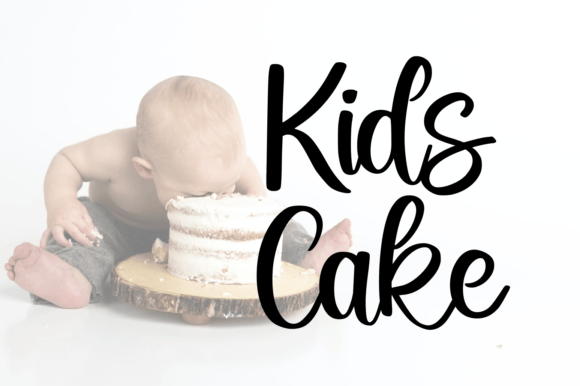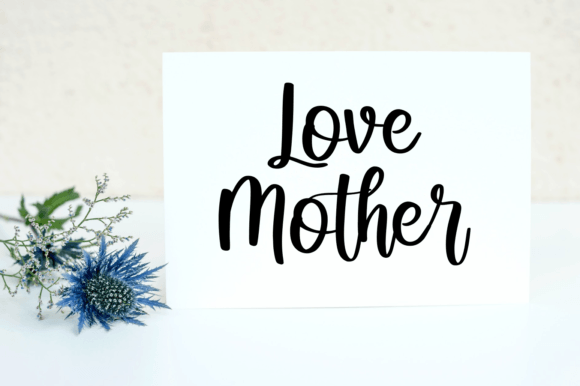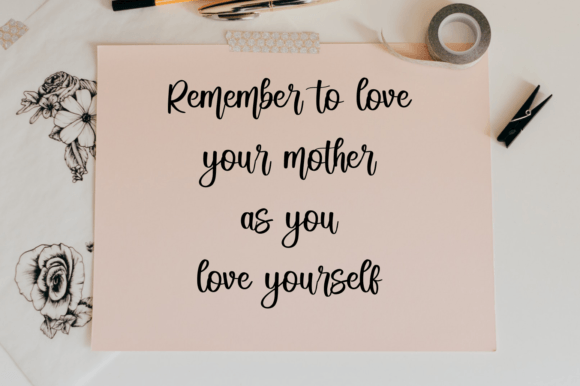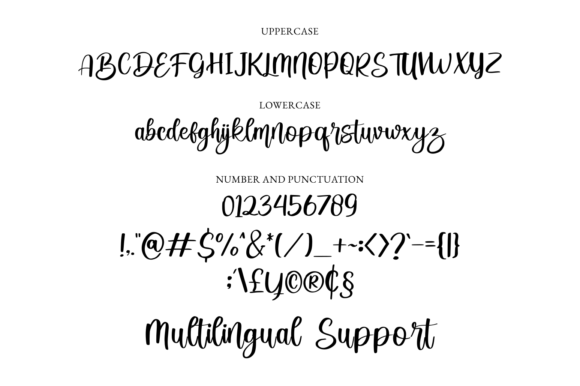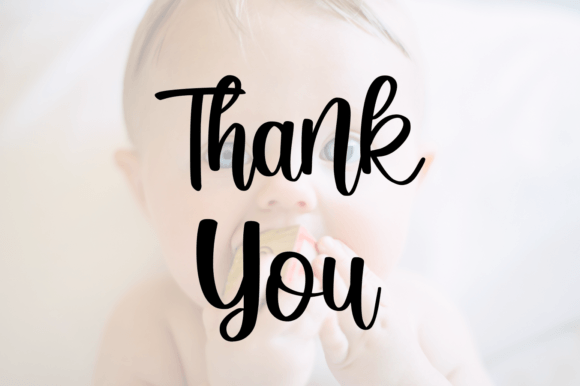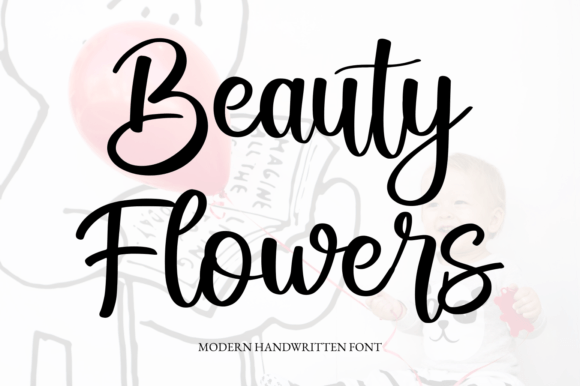
Introducing the Beauty Flowers Font: A Beautiful Way to Express Your Love on Mother’s Day
Every word spoken in a Mother’s Day card is a layer of deep love. And when those words are expressed with true beauty, our message becomes stronger and more meaningful. That’s why we’re excited to introduce the ‘Beauty Flowers’ font, a special offering for cherished moments with your beloved mother.
The Inspiration Behind Beauty Flowers Font
The ‘Beauty Flowers’ font is inspired by the delicate and intricate details of blooming flowers. Each letter is carefully crafted to resemble the petals of a flower, bringing a touch of natural beauty to every word. This elegant and feminine font is designed to add a sense of gentleness to every design, making it perfect for expressing your feelings to your mother on Mother’s Day.
What Makes Beauty Flowers Font Special?
The ‘Beauty Flowers’ font is not just an ordinary font. It’s a tool that can create a touch of gentleness, beauty, and elegance in every design. Here are some features that make it special:
- Elegant and Feminine Design: The font features delicate and intricate details, making it perfect for designs that require a touch of elegance and femininity.
- Hand-Crafted Letters: Each letter is carefully crafted to resemble the petals of a blooming flower, making every word a work of art.
- Gentle and Soft: The font adds a sense of gentleness to every design, making it perfect for expressing your feelings in a soft and loving way.
- Unique and Memorable: The beauty of the flowers seen in this font will reflect the uniqueness of your relationship with your mother, making your message memorable.
Why Choose Beauty Flowers Font for Your Mother’s Day Cards?
When it comes to expressing your feelings to your mother on Mother’s Day, you want to make sure your message is delivered in a beautiful and memorable way. Here are some reasons why you should choose the ‘Beauty Flowers’ font for your Mother’s Day cards:
- Perfect for Handmade Cards: The font is perfect for designers and crafters who create handmade cards and want to add a personal touch to their designs.
- Easy to Read and Write: The font is easy to read and write, making it perfect for creating beautiful and meaningful messages.
- Versatile: The font can be used for a variety of designs, from greeting cards to invitations and more.
- High-Quality: The font is of high quality, making it perfect for printing and digital use.
How to Use Beauty Flowers Font in Your Designs
Using the ‘Beauty Flowers’ font in your designs is easy. Here are some tips:
- Pair it with Other Fonts: Pair the ‘Beauty Flowers’ font with other fonts to create a unique and interesting design.
- Use it for Headings and Titles: Use the font for headings and titles to add a touch of elegance and femininity to your design.
- Experiment with Colors: Experiment with different colors to find the perfect combination that matches your design.
- Add Floral Elements: Add floral elements to your design to complement the font and create a beautiful and cohesive look.
| Font Name | Beauty Flowers Font |
| Author | Rissyletter Studio |
The ‘Beauty Flowers’ font is a beautiful and elegant font that is perfect for expressing your feelings to your mother on Mother’s Day. With its delicate and intricate details, this font adds a touch of natural beauty to every word. Whether you’re a designer or crafter, this font is perfect for creating handmade cards and designs that are unique and memorable. So why not give it a try and make your Mother’s Day cards extra special?